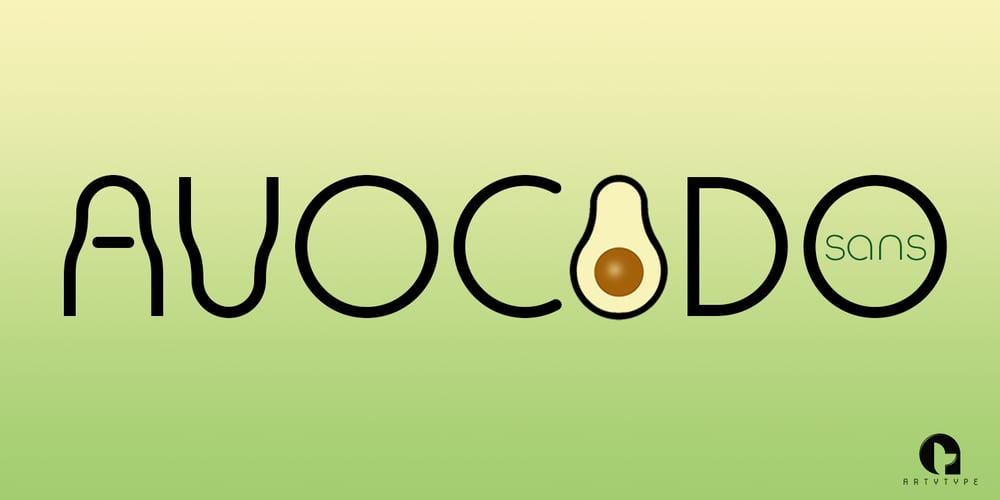
Avocado Sans Font Family was designed by James Marsh and published by ArtyType. Avocado Sans contains 2 styles and family package options. This ‘pear-shaped’ typeface literally defines its original design inspiration in the first capital letter. The clean-cut lines and uniquely curved letterforms, combined with a thoughtful mix of squared & rounded terminals, all help make Avocado Sans such a stylish and legible font, very easy on the eye. Available in two practical weights, Light & Regular, each offering alternate style options.